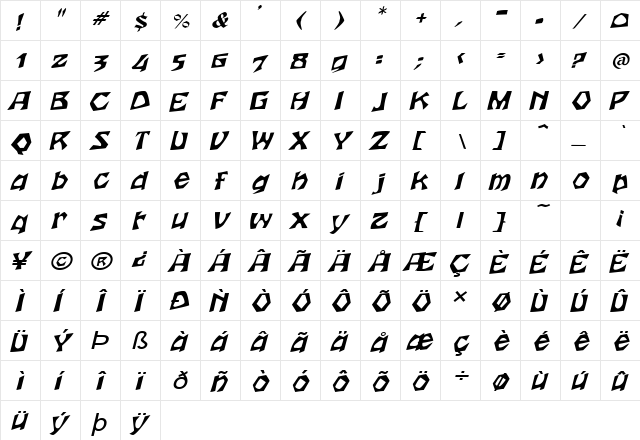
Woodcut-Extended Italic
Design Context for Woodcut-Extended Typeface
Woodcut-Extended echoes the hand-painted signage and woodblock typography of the American frontier, with a warm, rugged personality. Its italic angle brings a sense of urgency and motion to the letterforms.
Perfect for barbecue restaurants, country music branding, vintage poster design, and rustic packaging.
Font Pairing: Combine Woodcut-Extended with a simple slab or neutral sans — period-accurate companions reinforce the vintage feel without competing for attention.
Pro Tip: Pair Woodcut-Extended with aged textures or distressed backgrounds to amplify its vintage personality.